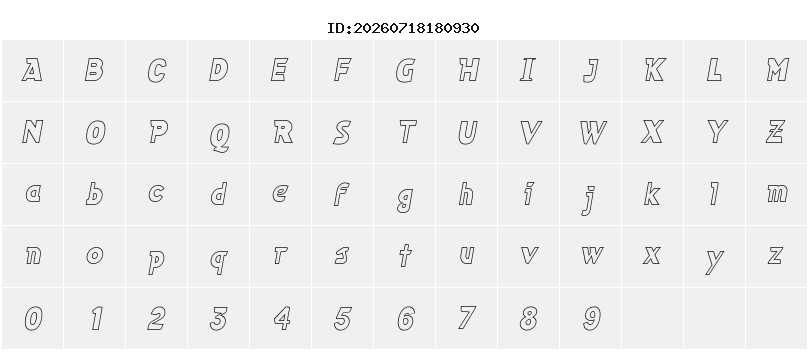
CubanOutline Preview
• Font Name: CubanOutline
• Font Style: Medium Italic
About CubanOutline.ttf
CubanOutline.ttf is a modern, elegant sans-serif font designed for ultimate readability and visual harmony. Perfect for branding, headlines, web design, and print materials.